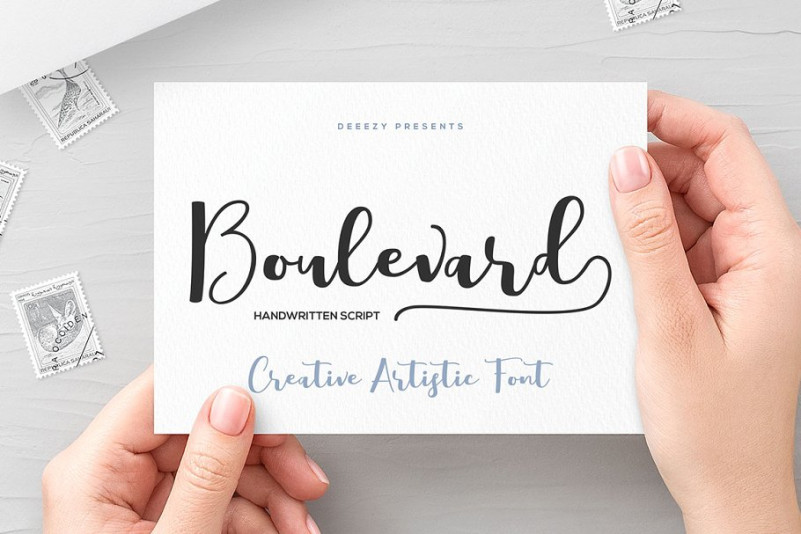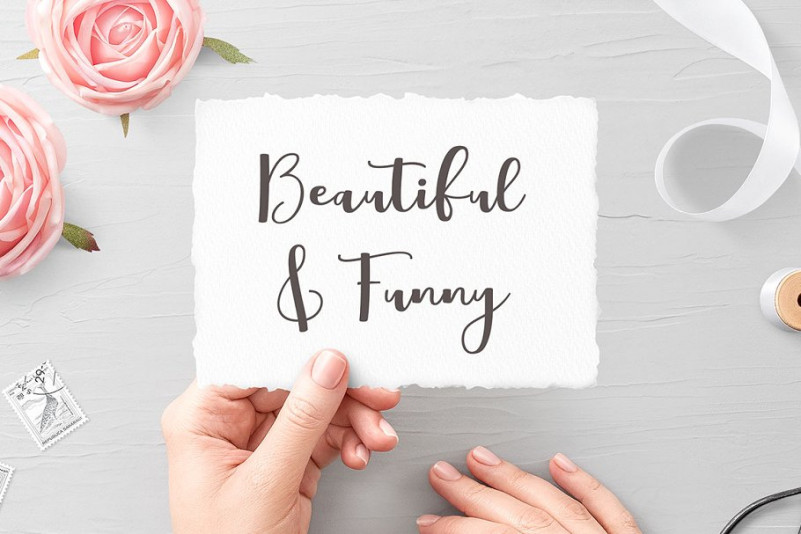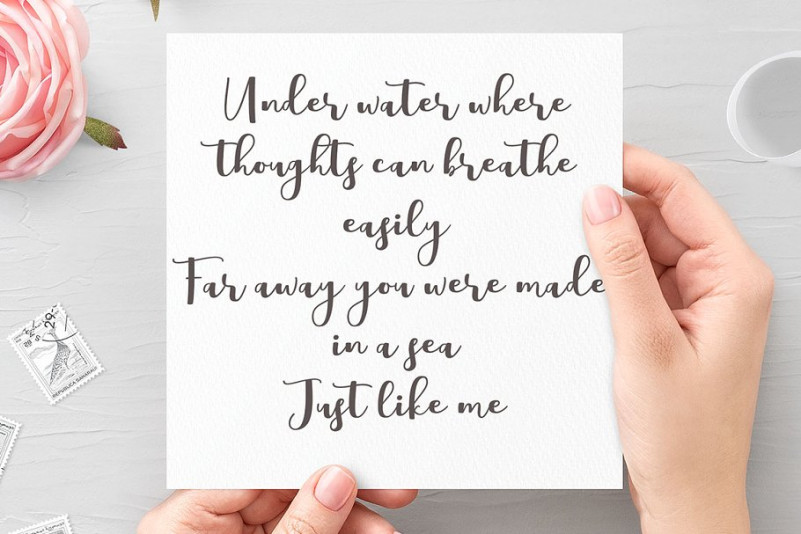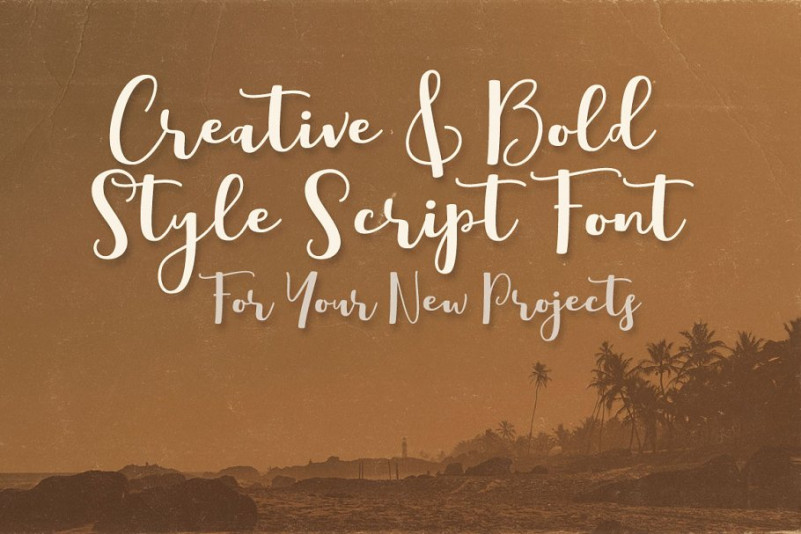
Boulevard Script Font
Bold and handwritten or creative style script font for your new projects. With multi language support and lot of stylistic alternates & swashes. Enjoy ;